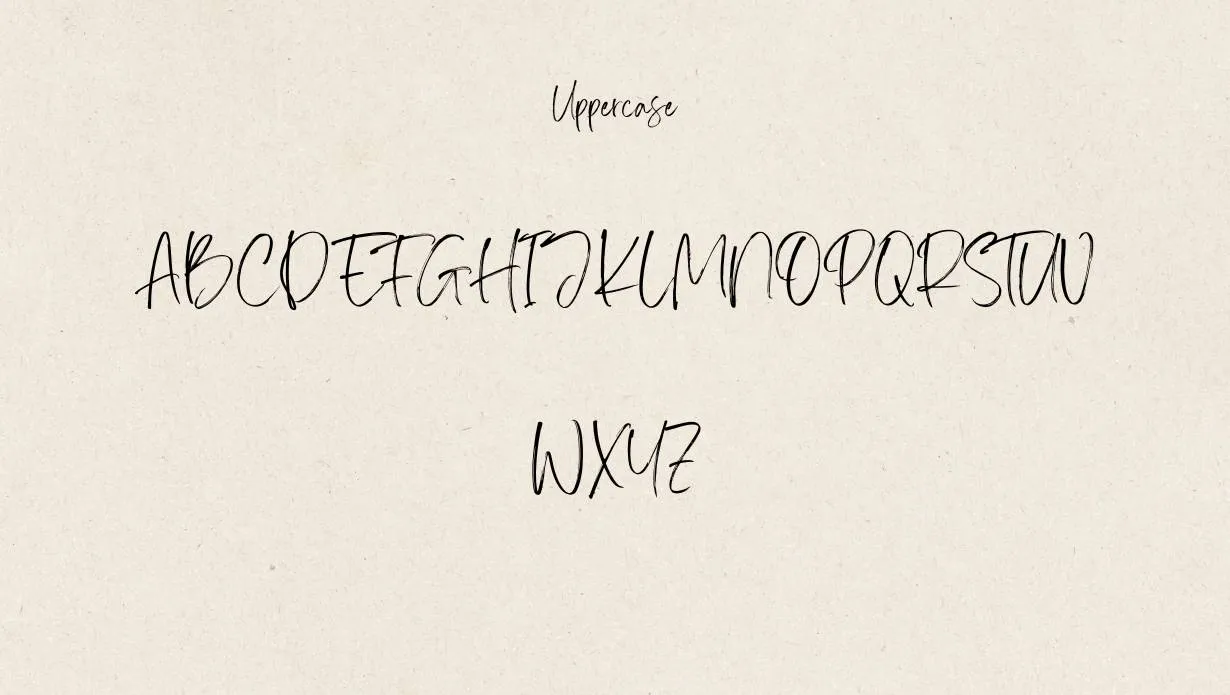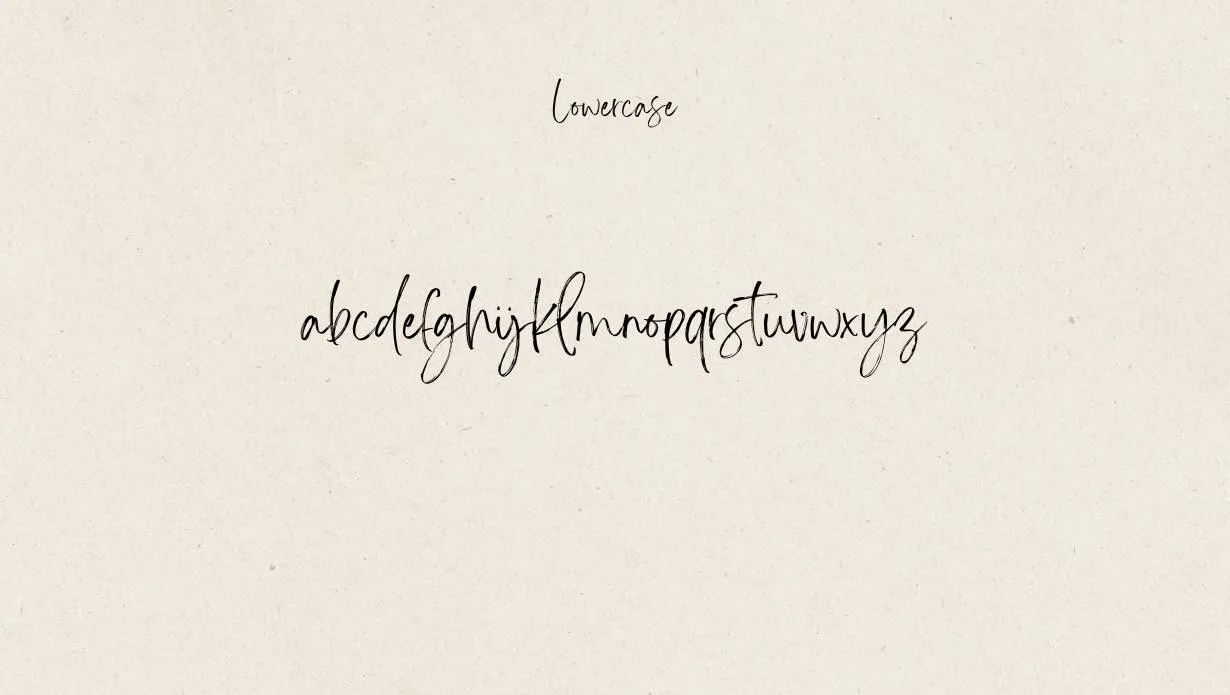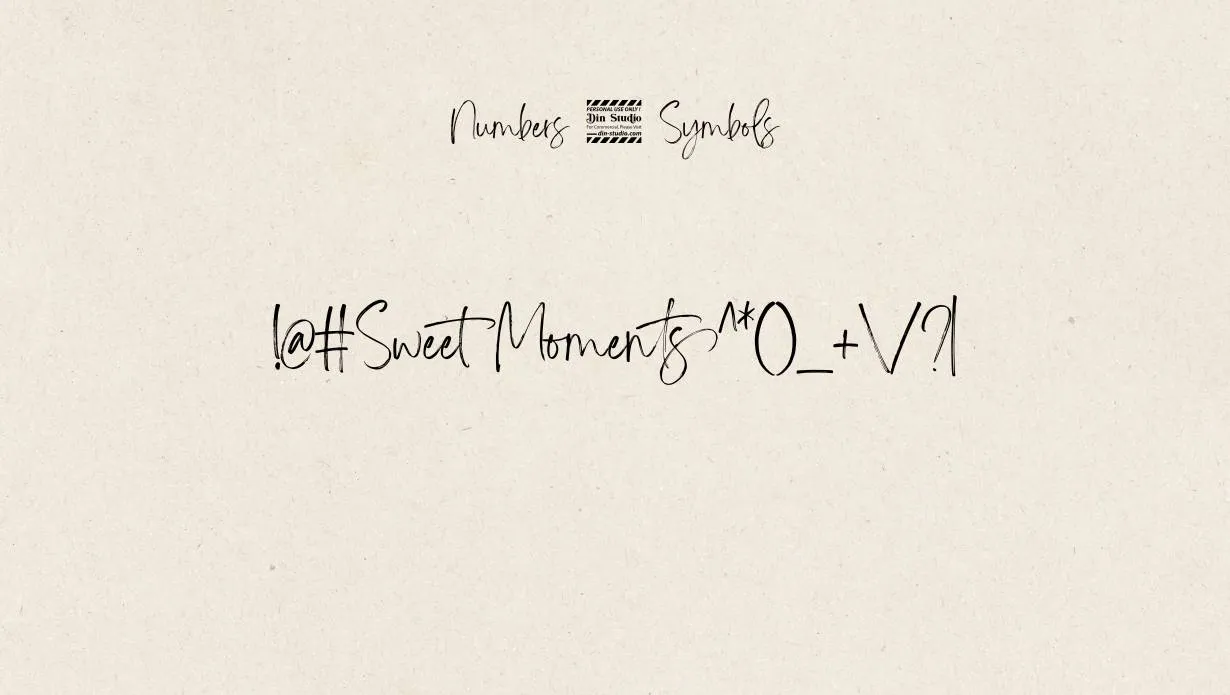
The design has chic, clean-edged characters that make it a great option for headers and certain other visual needs. Sweet Moments Font is a terrific option for joyful graphic designs because of its cheerful and unique appearance. Din Studio created this elegant style.
Sweet Moments Font Family
| Name | Sweet Moments Font |
| Designer | Din Studio |